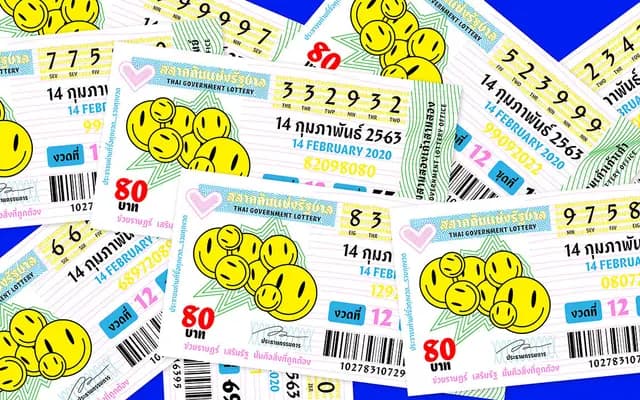
Huai
Positype · Potch Auacherdkul · 2020
A bilingual Latin and Thai sans whose Latin forms are derived from vernacular Thai handwriting, reversing the usual direction of cross-script influence.
Designed by Potch Auacherdkul and released in 2020, Huai inverts the common pattern of Thai typefaces borrowing from Latin sans serifs by instead letting Thai vernacular letterforms, specifically the fluid strokes of Bangkok street signage, shape its Latin companion. The family spans six weights from ExtraLight to Black, each with a matching italic, across 24 styles total. Named after the Thai lottery ritual, the typeface carries that cultural specificity into its letter architecture without reducing it to surface ornament.
Huai's Latin letterforms are derived from vernacular Thai handwritten strokes, producing a warm, humanist sans with organic, fluid proportions rather than the neutral geometry of a grotesque or geometric sans.